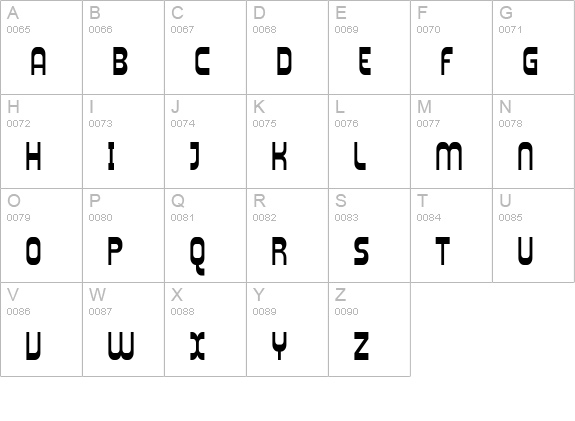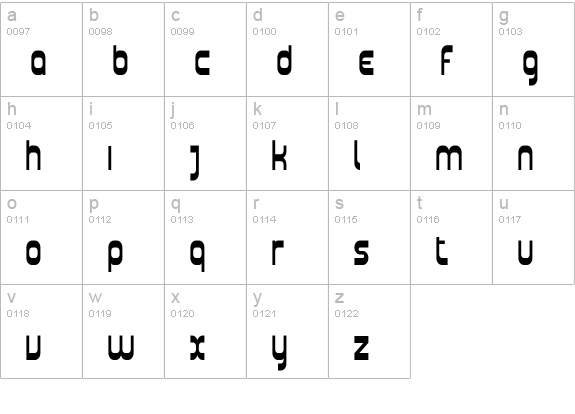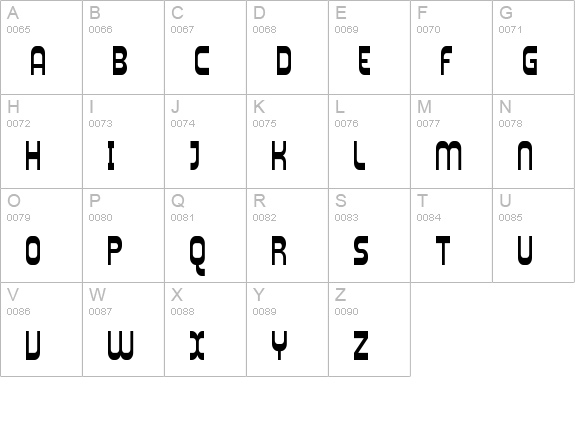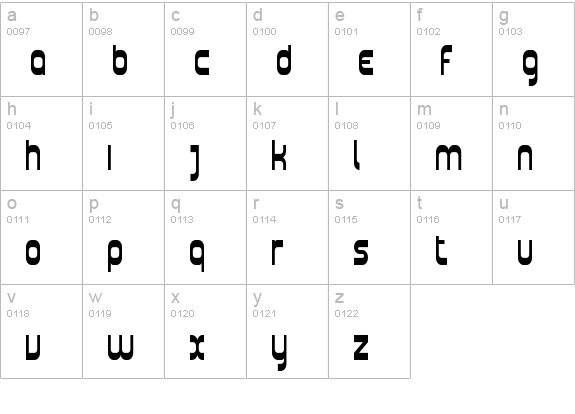
Plasmatica Cond is a distinctive, condensed-width variant in the Plasmatica typeface family \xE2\x80\x94 well suited to design and typography projects.
Plasmatica Cond is a stunning and versatile font that exudes elegance and modernity. Its condensed letterforms add a touch of sophistication to any project, making it an ideal choice for both display and body text. This typeface boasts clean lines and sharp edges, giving it a sleek and polished appearance. Its narrow proportions make it perfect for fitting more text into limited spaces, while still maintaining readability and legibility. The Plasmatica Cond font offers a wide range of uppercase and lowercase characters, as well as numerals, punctuation marks, and special symbols. This allows for endless creative possibilities in various design projects, such as branding, advertisements, posters, and more. One of the most remarkable features of Plasmatica Cond is that it is available for free download at FontsMarket.com. This means that designers and enthusiasts alike can easily access and utilize this exceptional font without any financial constraints. Its free availability makes it an excellent resource for anyone seeking a high-quality and visually captivating typeface. With its modern aesthetic and versatility, Plasmatica Cond is a font that will surely elevate any design, adding a touch of sophistication and uniqueness. Whether used in print or digital media, this font is guaranteed to make a lasting impression. So why wait? Download Plasmatica Cond today and let your creativity soar!